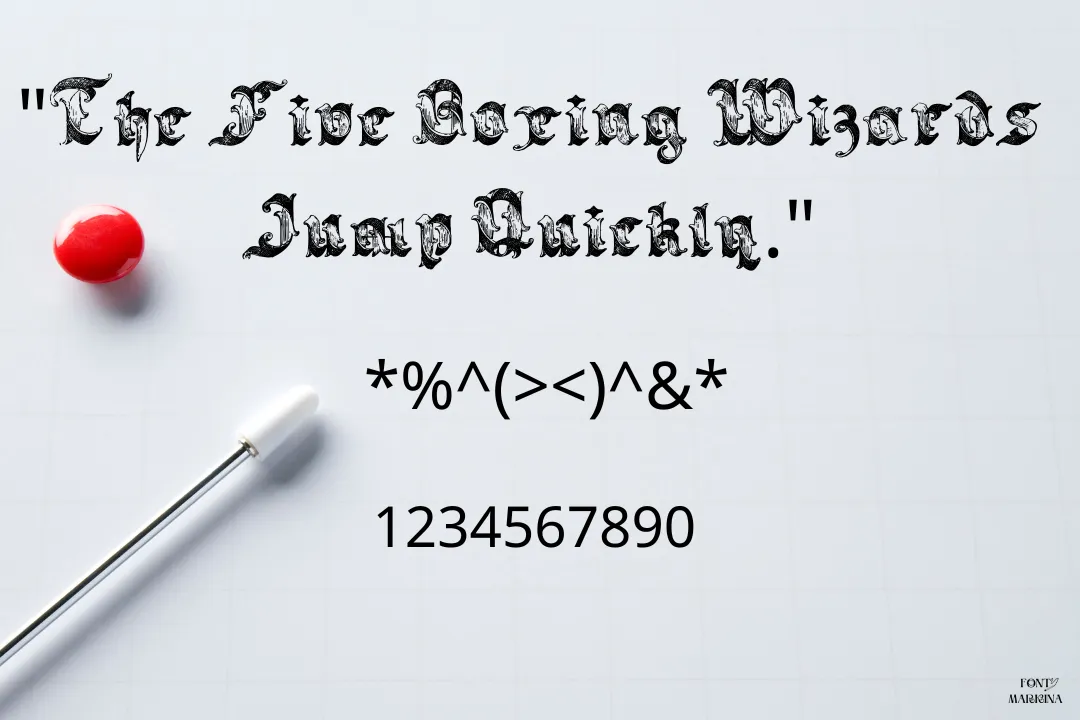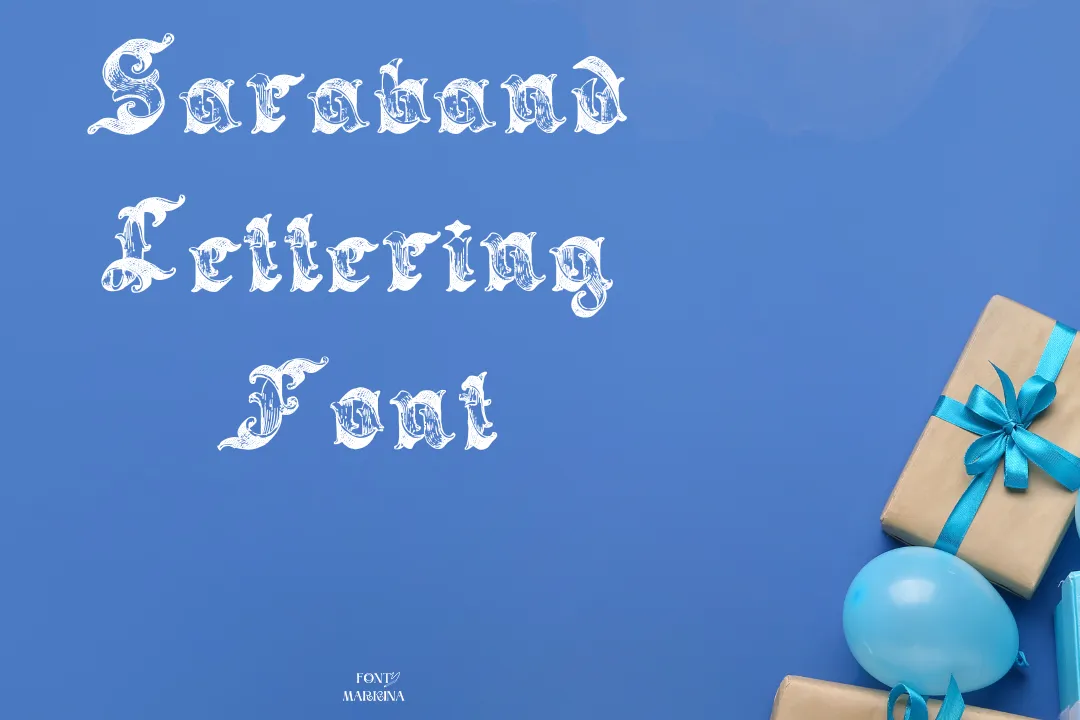
Saraband Lettering Font is looking totally distinguishable as compared to other textures. Because this family has disorders, irregular, and wonderful shape. This texture falls in the classification of the gothic family of fonts.
Paul Lloyd is the real and actual creator of this family of fonts. This typography is well-famed in the field of design all across the globe. This texture has only one special and classic weight that increases its worth. Its uppercase and lowercase letters assemble this family fantastic.
Uses of Saraband Lettering Font
These days, the use of this family is standard all across the globe. All higher companies use this typography for their designs and melodies. This advantageous font is effective for body text, short paragraphs, and even long paragraphs.
In offices and business sectors, it is useful for different types of project presentations. Because of its classic look, this family is well famed for brand designs and logo designs. Even for road signs, Bill boards, and signs boards, this typography is mostly used.
It is immaculate for all business projects. You can also use this texture by pairing it with Bank Gothic font which is very traditional. You can use it for brochures, cards layout, and emblems, as your clients wish.
Saraband Lettering Font View
| Name | Saraband Lettering Font |
| Designer | Paul Lloyd |
| Type | Gothic |
What is the type of Saraband Lettering Font?
This family has a disordered shape and lies in the classification of the gothic family of textures.
Who is the creator of Saraband Lettering Font?
Paul Lloyd a very sharp and intelligent mind designer is the main creator of this family.
Is Saraband Lettering Font a google font?
Where we can use Saraband Lettering Font?
This family is used in different locations including logos, books cover, cards, and much more.